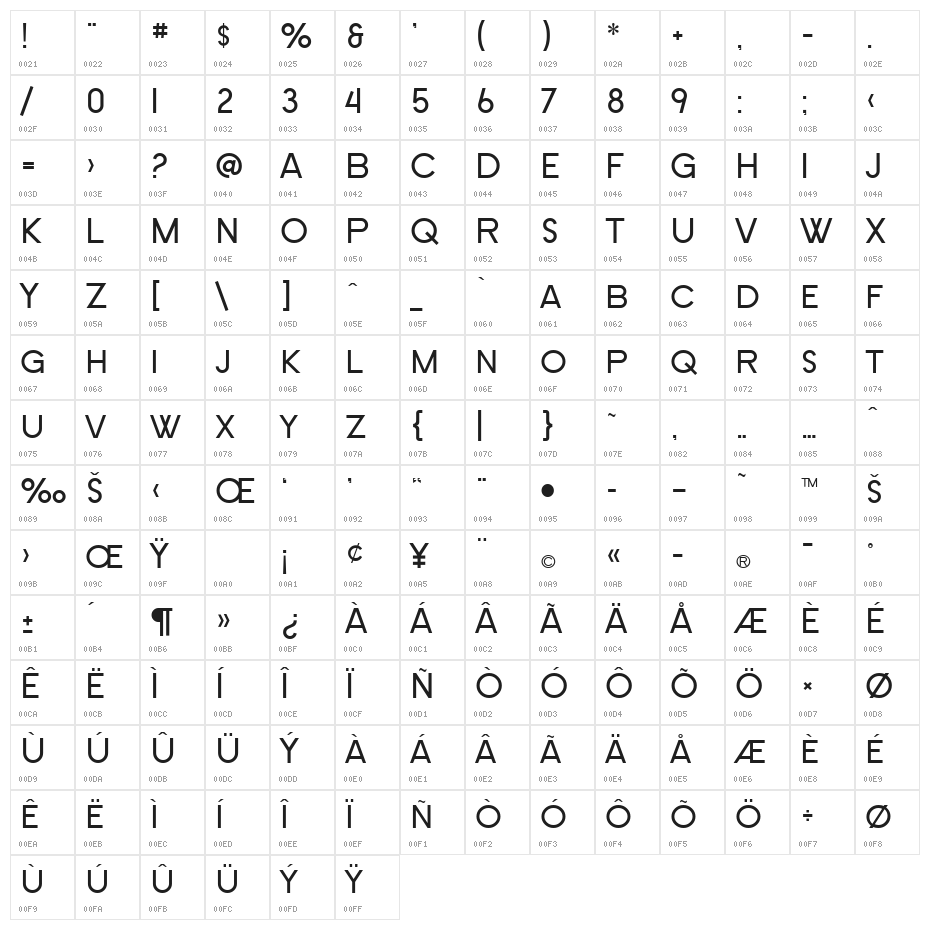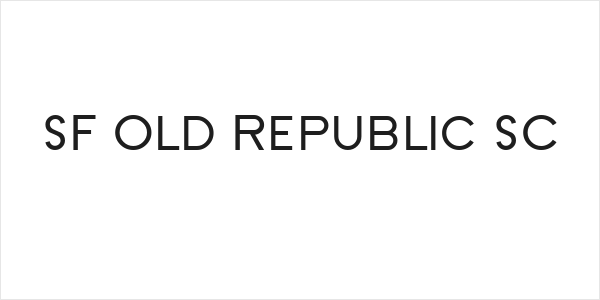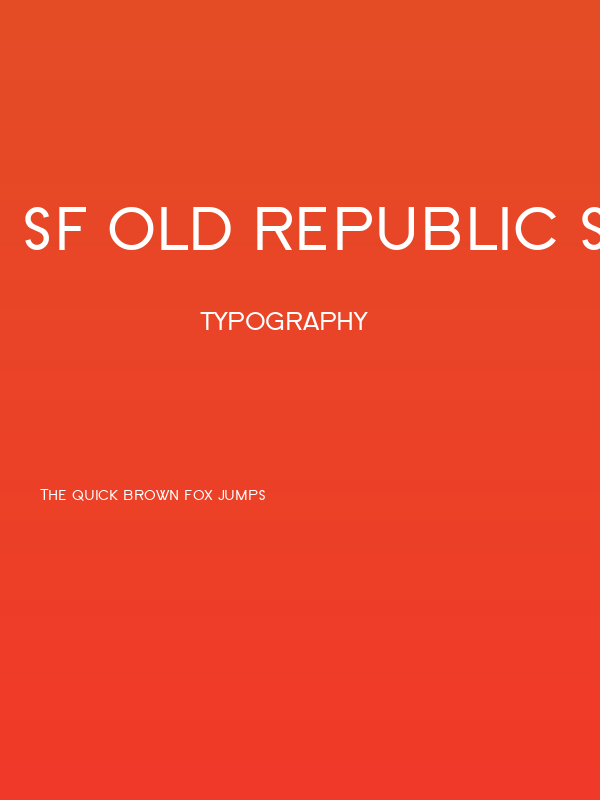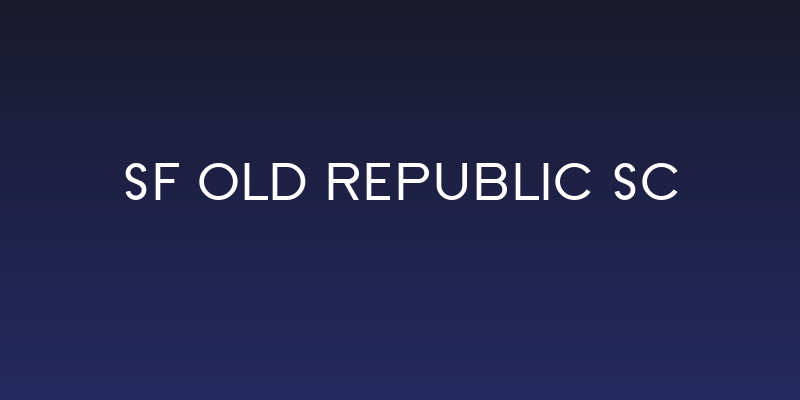
SF Old Republic SC Font
SF Old Republic SC Description
This font features a clean and modern sans-serif style with uniform stroke widths, giving it a sleek and contemporary appearance. The characters are well-proportioned, with a geometric influence that enhances readability. The uppercase letters are bold and assertive, while the lowercase letters maintain a consistent and harmonious flow. The numerals are clear and distinct, making them suitable for various applications. Special characters are designed with simplicity and functionality in mind, ensuring they blend seamlessly with the overall aesthetic. This font's versatility makes it ideal for both digital and print media.
| Proposed Projects | Ideal for branding, web design, advertising, and editorial projects. |